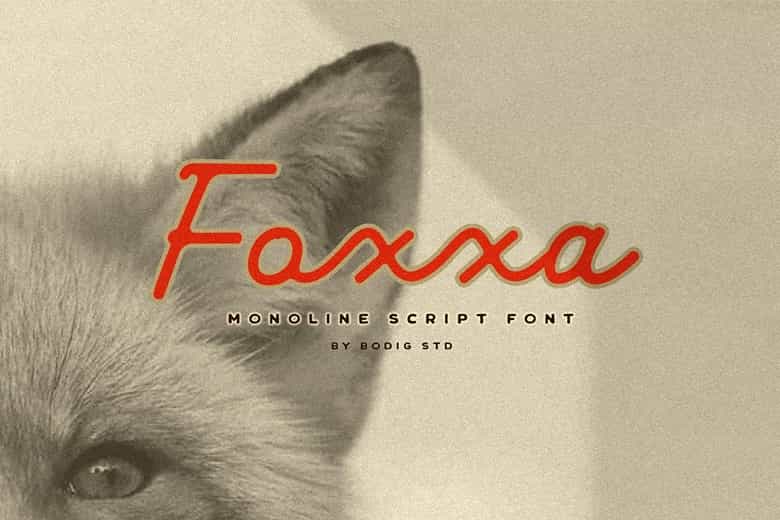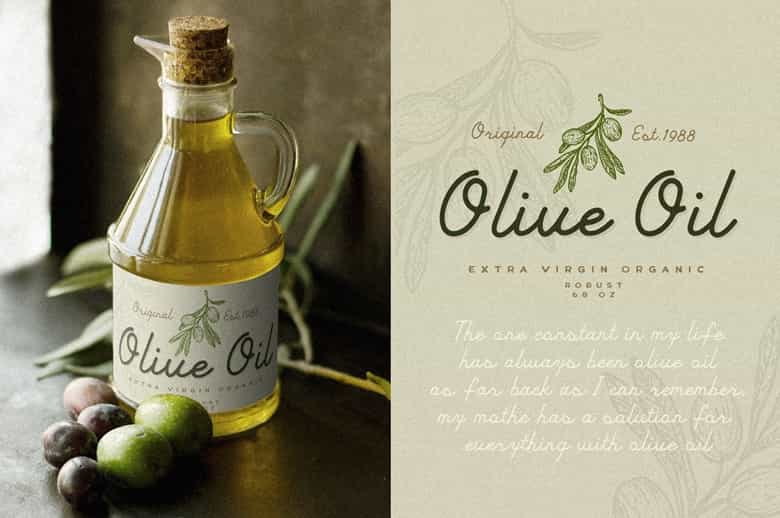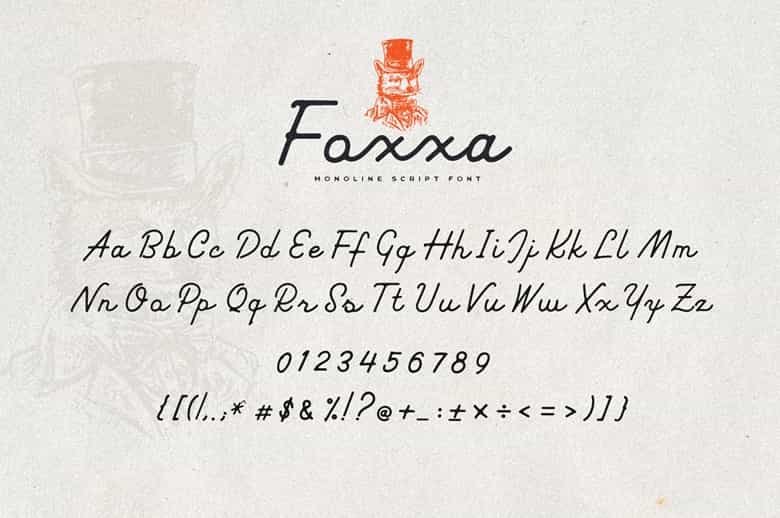
Foxxa is a modern monoline script font with a touch of elegance and simplicity – it looks good on everything from product labels, t-shirts, logos, book covers, posters, and more.